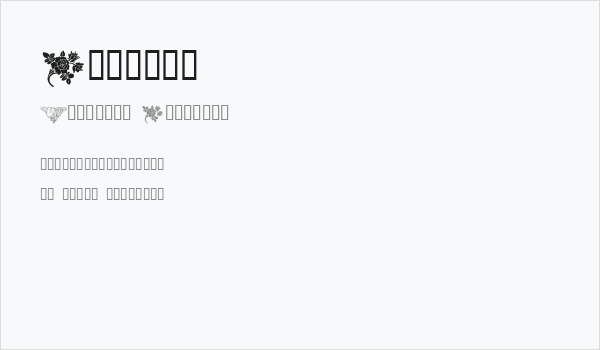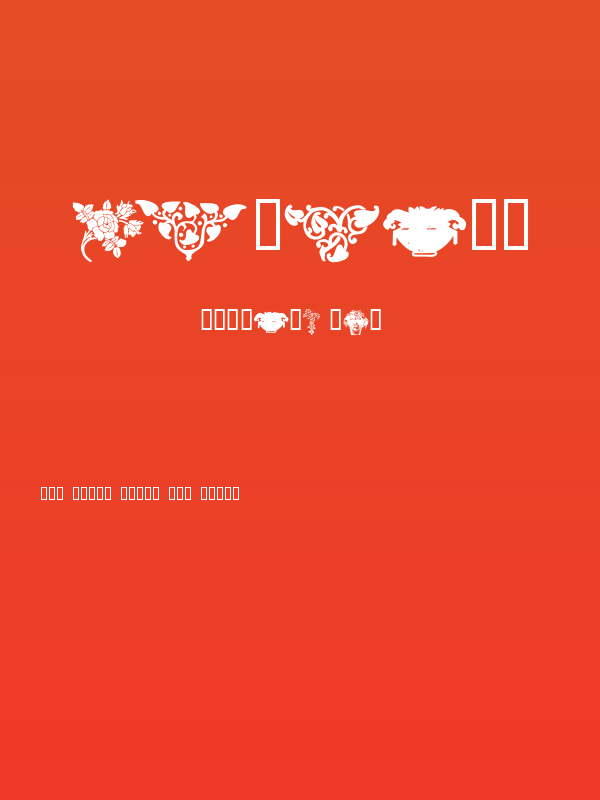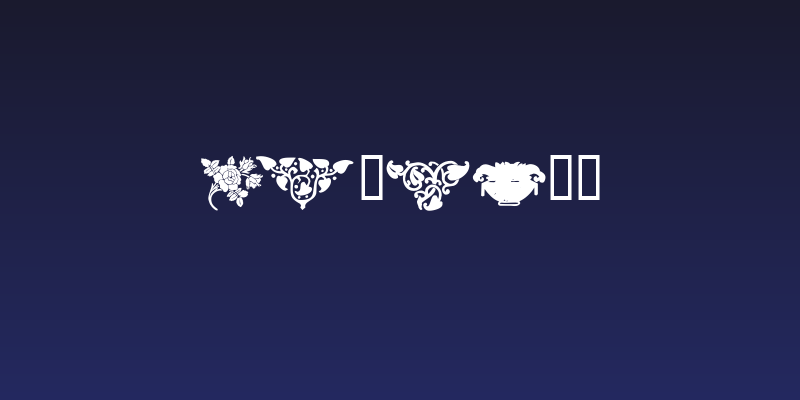
Design3 Font
Design3 Description
This design features a collection of decorative elements rather than a traditional font. The top row consists of intricate floral and ornamental motifs, showcasing a variety of symmetrical and asymmetrical designs. These elements are highly detailed, with an emphasis on curves and flourishes, reminiscent of vintage or classical decorative art. The rest of the image contains empty rectangular placeholders, suggesting a template or guide rather than actual typographic characters. The overall aesthetic is ornate and could be used for embellishing designs or creating borders.
| Use Case | Decorative elements, not suitable for text. |
| Proposed Projects | Ideal for use in decorative borders, invitations, greeting cards, or as embellishments in graphic design projects. |